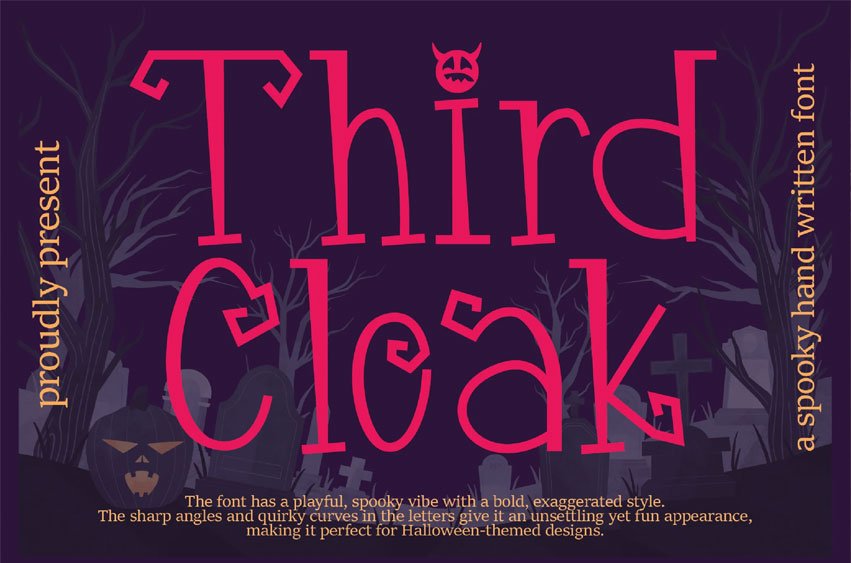
Third Cloak Font is a dark and mysterious display font inspired by the chilling secrets and sinister shadows of Halloween. With its sharp, twisted edges and cloaked, veiled forms, this typeface evokes a sense of hidden menace and eerie intrigue.
Perfect for spooky posters, haunted event invitations, ghostly designs, or anything that needs an unsettling touch, ThirdCloak brings the feeling of an ominous presence lurking just out of sight. It’s bold, mysterious, and perfect for creating suspenseful designs that capture the haunting essence of Halloween.